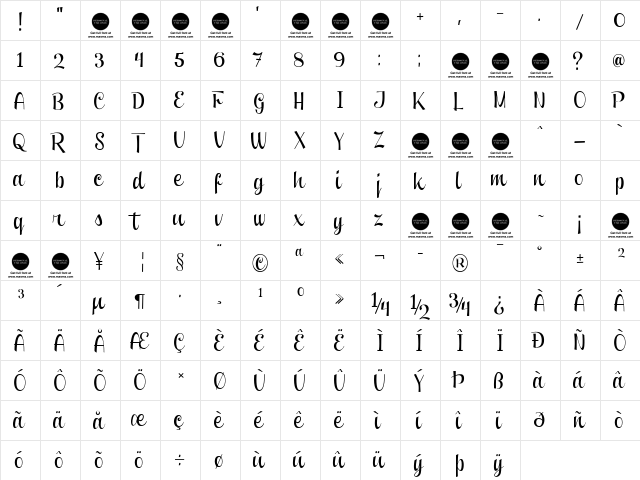
Clipper Script Fat (Personal Use) Regular
| Designer | M害 Greb䣫 |
Design Context for Clipper Script Fat (Personal Use) Typeface
Clipper Script Fat (Personal Use) brings a calligraphic fluidity to the page — its connecting strokes and expressive curves give it an unmistakably human quality.
Font Pairing: Combine Clipper Script Fat (Personal Use) with a simple geometric sans for maximum contrast — the tension between flowing curves and clean structure is a classic typographic pairing.
Pro Tip: Pair Clipper Script Fat (Personal Use) with a clean sans-serif for supporting text. The contrast between fluid script and geometric structure creates an elegant typographic hierarchy.